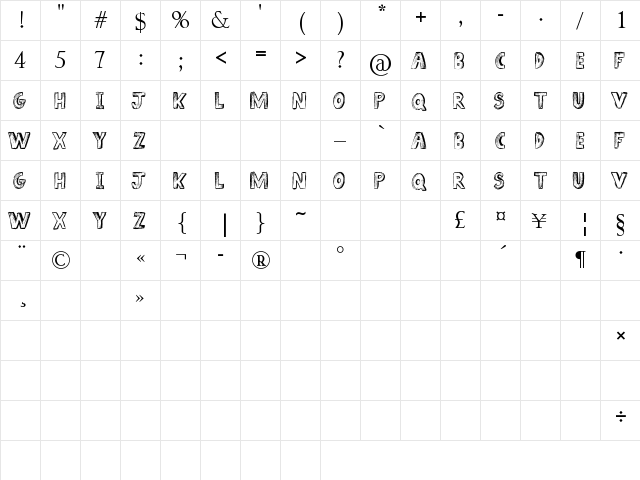
Sketch Book Regular
Design Context for Sketch Book Typeface
Sketch Book is a composed and adaptable typeface that performs quietly and consistently across a wide range of design contexts.